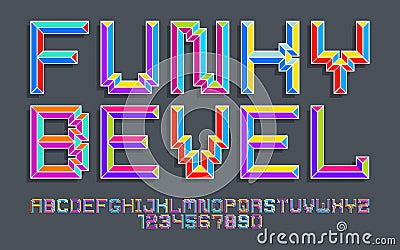
Child Constructor Colorful Minimal Square Vector Font With Bevel Effect, Letters And Numbers Alphabet In Toy Beveled Style,
Child constructor colorful minimal square vector font with bevel effect, letters and numbers alphabet in toy beveled style, Vector Illustration
Child constructor colorful minimal square vector font with bevel effect, letters and numbers alphabet in toy beveled style, multicolored geometric 3D typography